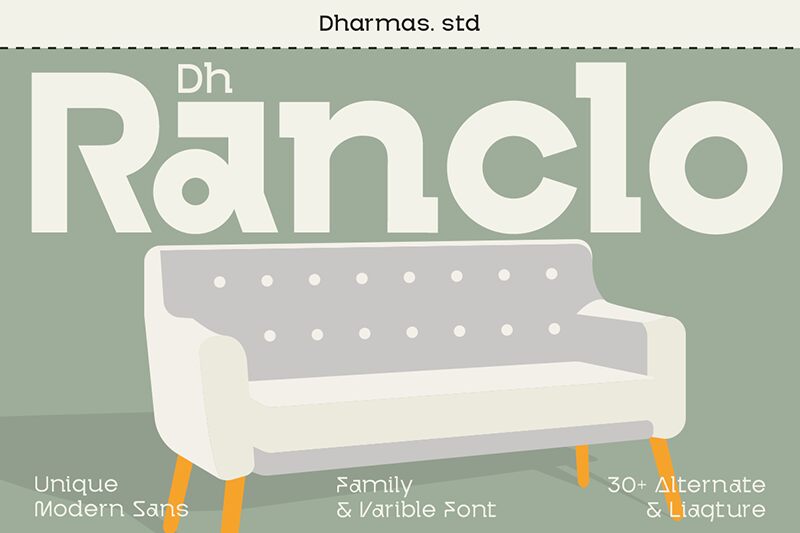
Dh Ranclo Bold font by Dharmas Studio is a modern, bold, rounded geometric sans-serif free font with clean lines and a contemporary aesthetic. Visually stunning, the minimalistic design gives this font power and greatness that cannot be ignored.
Its uses can cover web design, branding projects, magazine editing, social media platforms (Instagram posts and stories), game interfaces and development apps (iPhone or Android apps). It works well on business cards alongside advertising posters displayed outdoors for passersby to see them too!